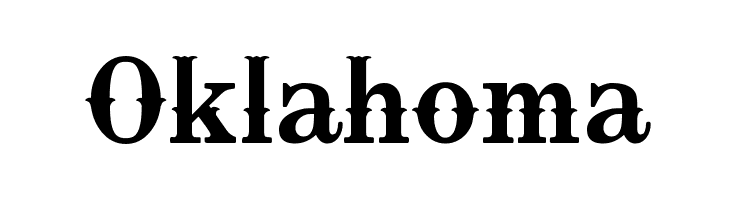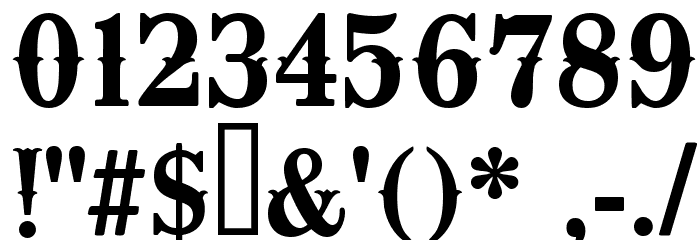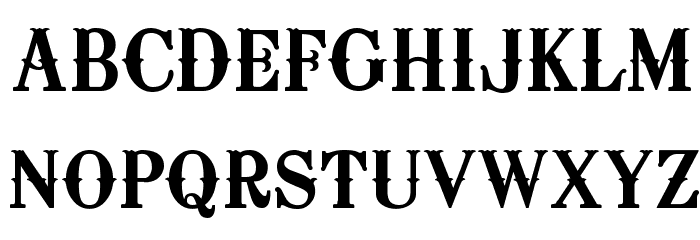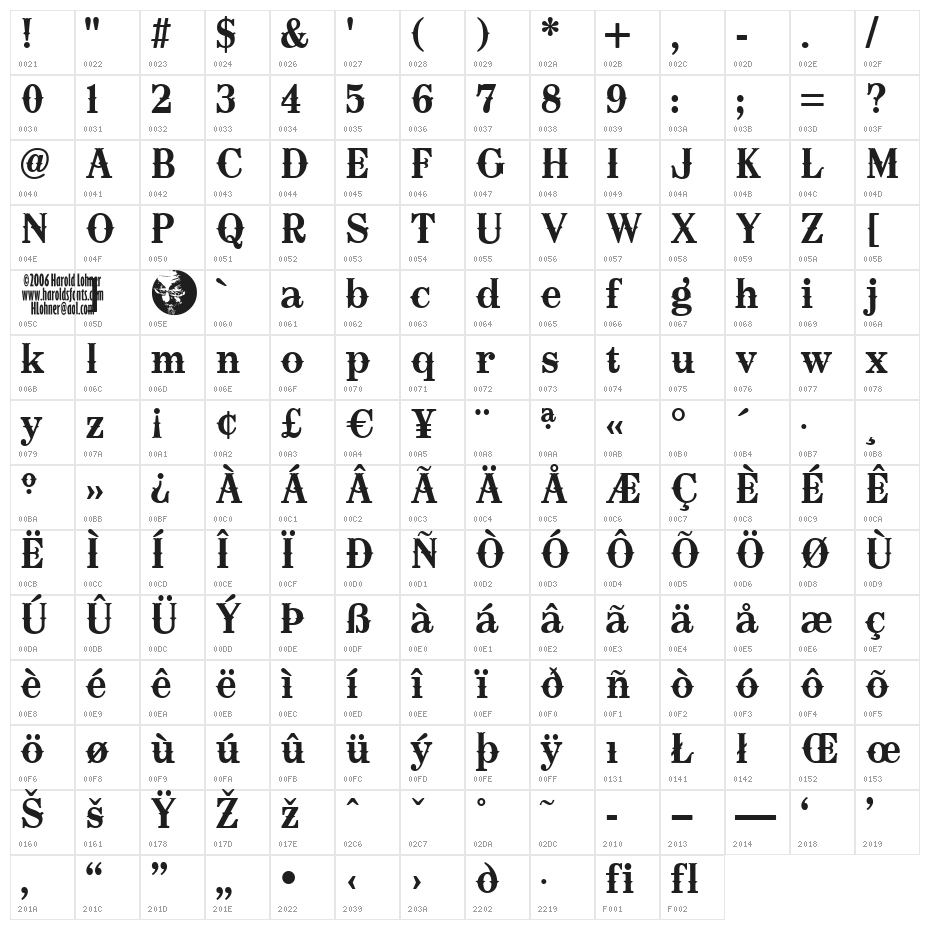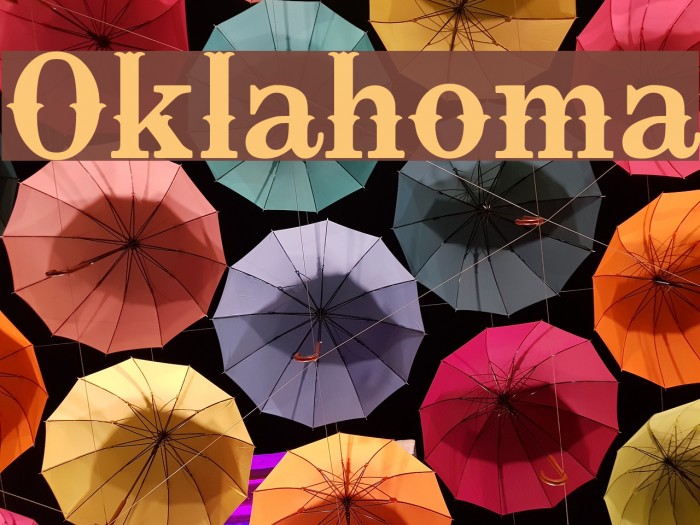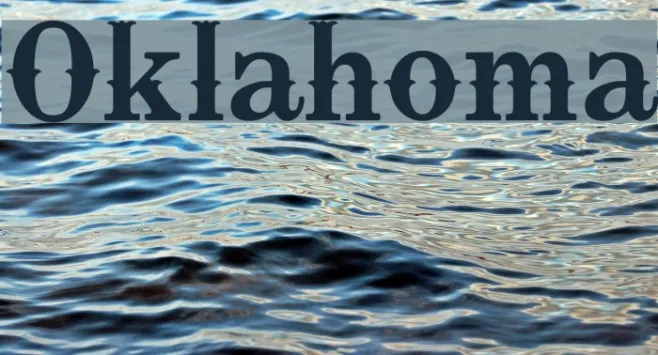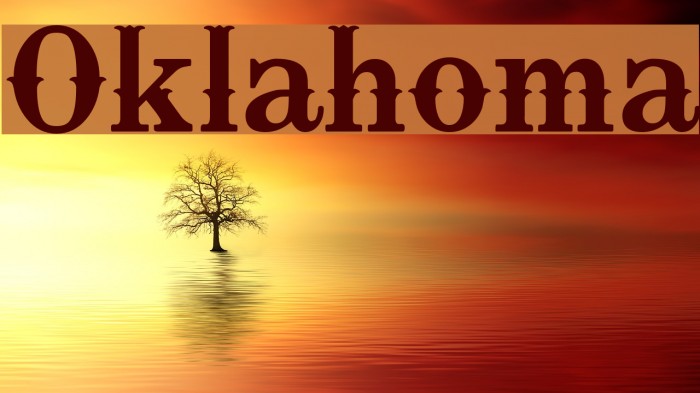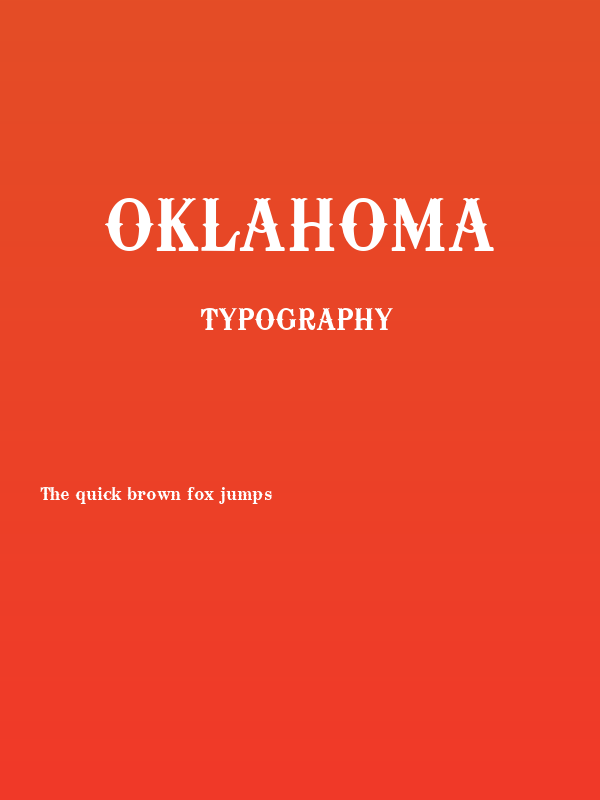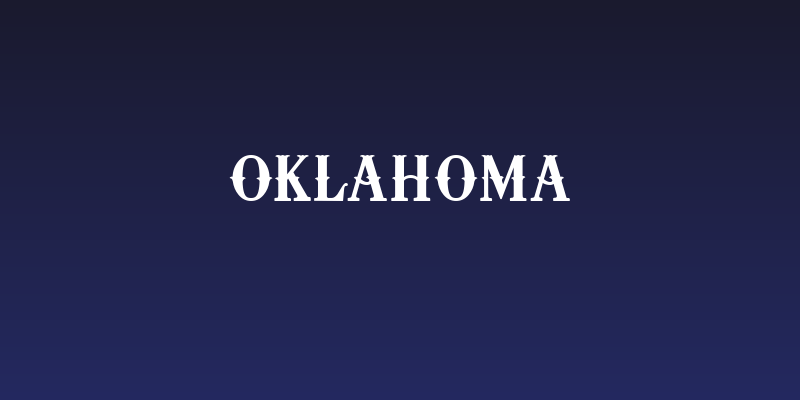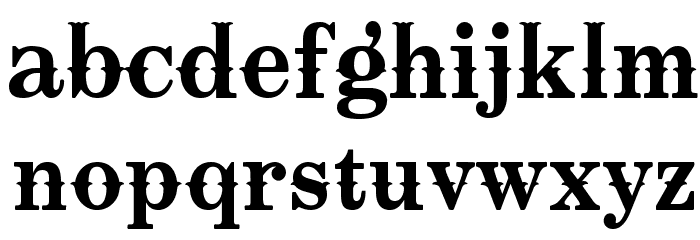
Oklahoma Font
Oklahoma Description
This font features a bold and robust serif style with strong, pronounced serifs that give it a classic and authoritative appearance. The uppercase letters are tall and commanding, while the lowercase letters maintain a consistent weight and structure, ensuring readability. The numerals are equally bold, matching the overall strength of the alphabetic characters. Special characters are designed with the same attention to detail, making them stand out effectively. The font's high contrast between thick and thin strokes adds to its elegance and readability, making it suitable for various formal and impactful design projects.
| Proposed Projects | Ideal for book covers, headlines, posters, and branding materials that require a strong, authoritative presence. |